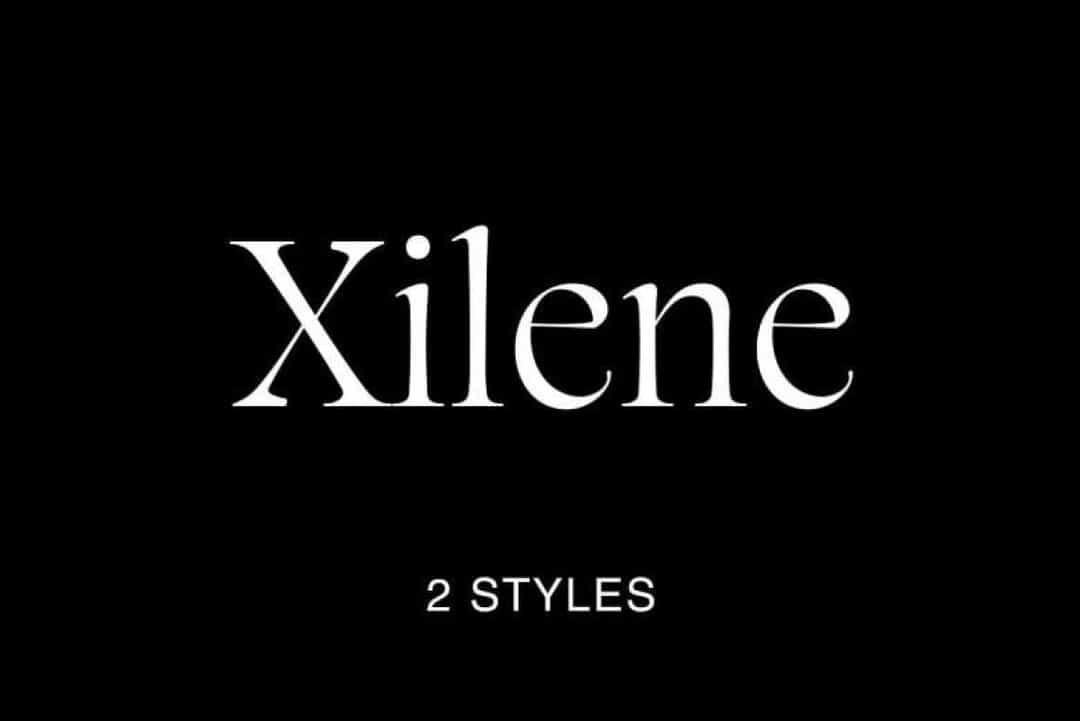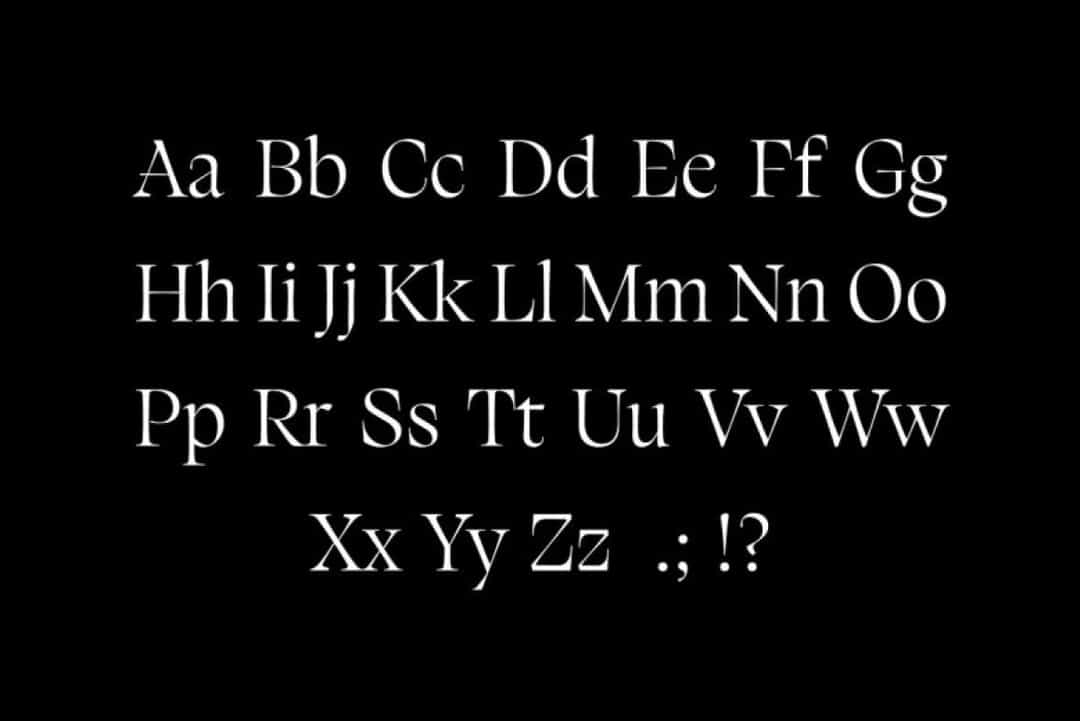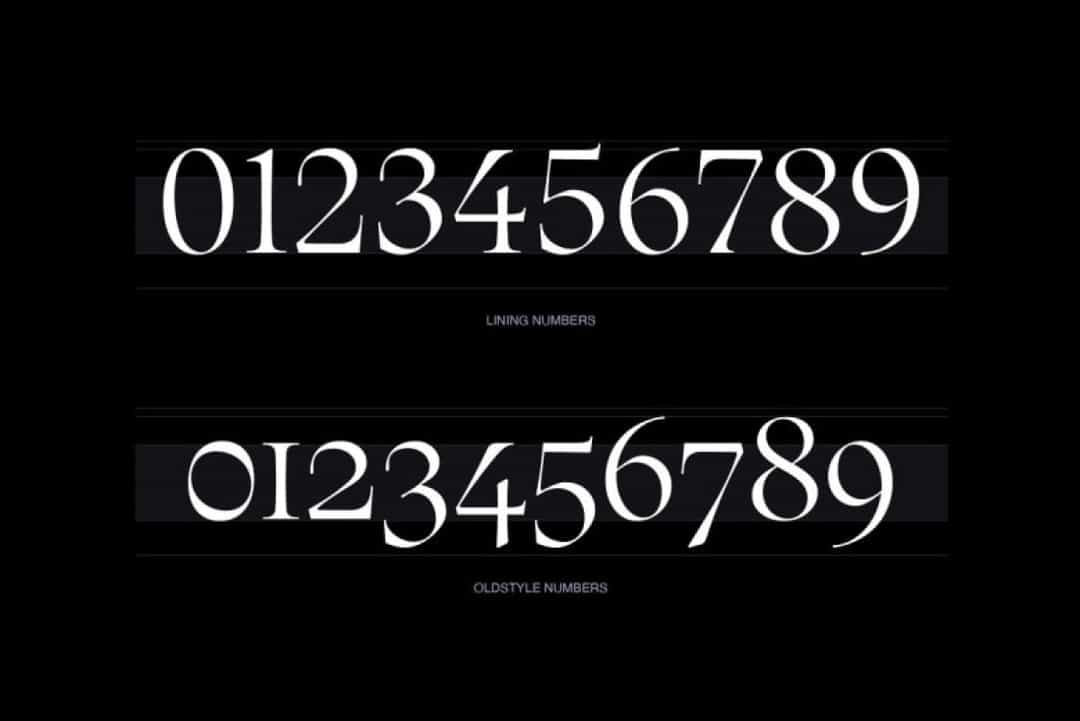
Xilene can be described as an elegant display serif typeface inspired by 20th century calligraphy styles as well as transitional fonts. This Roman-influenced typeface blends dynamic Italics with classic Roman script. Xilene features contemporary proportions with sharp terminals and striking stroke contrast, producing diagonal stress in the stroke contrast pattern.